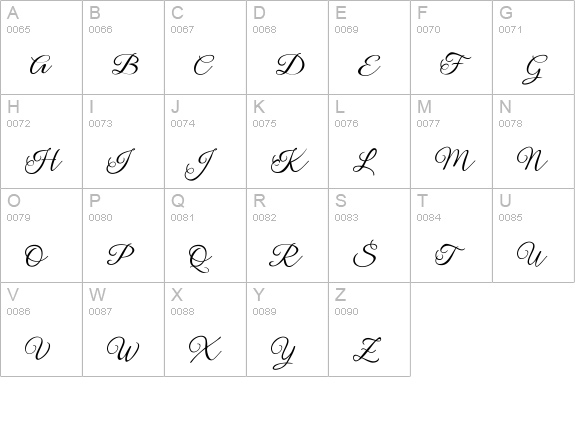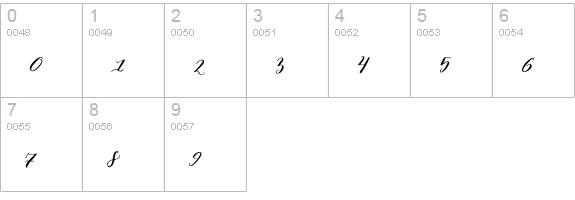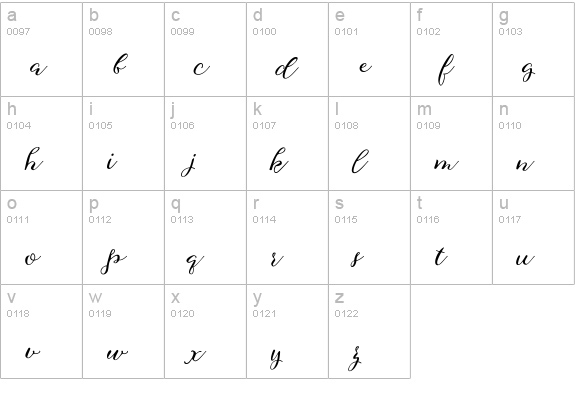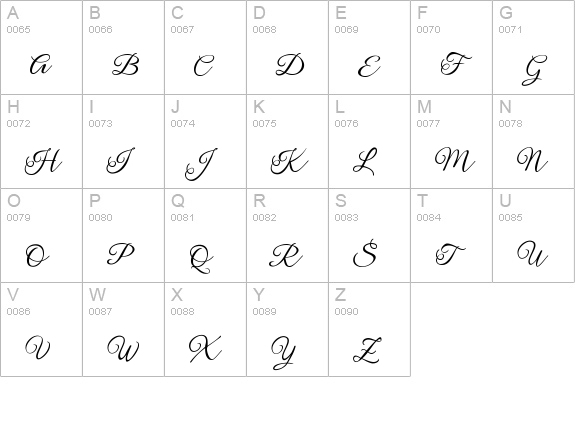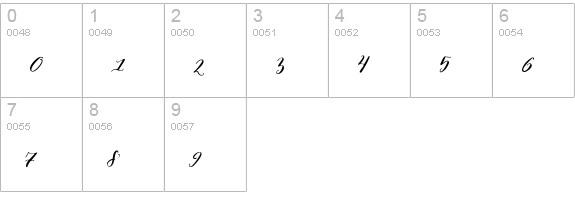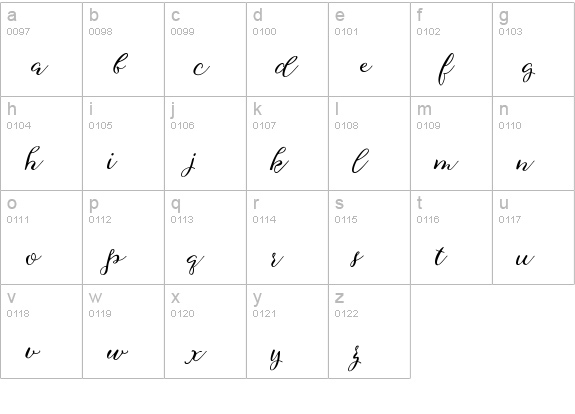
Sophia Script Font Details
Sophia Script font is a beautifully crafted typeface that exudes elegance and sophistication. Its delicate curves and flowing lines give any design a touch of charm and grace. Perfect for invitations, wedding stationery, and branding projects, Sophia Script adds a touch of romance to any project. What makes Sophia Script font even more appealing is that it is available for free! Yes, you read that right - you can download this stunning font at FontsMarket.com at no cost. With its timeless appeal and versatility, Sophia Script is a must-have in any designer's toolkit. Don't miss out on the opportunity to enhance your creations with this exquisite typeface. Download Sophia Script today and elevate your designs to new heights!